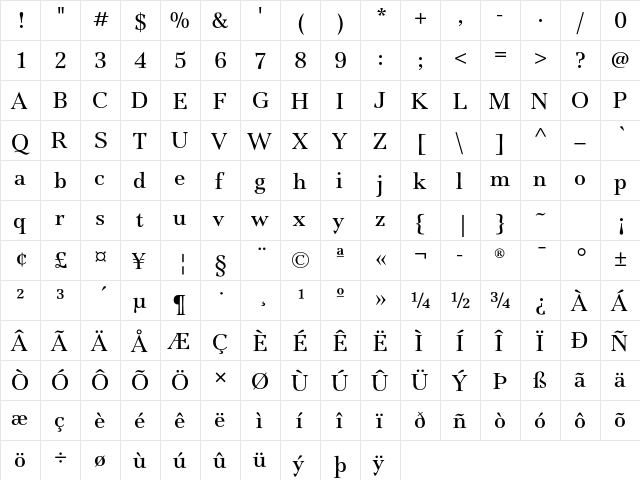
Jamille ITC Std Book
| Designer | Mark Jamra |
Design Context for Jamille ITC Std Typeface
Jamille ITC Std is a composed and adaptable typeface that performs quietly and consistently across a wide range of design contexts.
Pro Tip: Use Jamille ITC Std in both headline and body roles to test its range before committing to a single application.